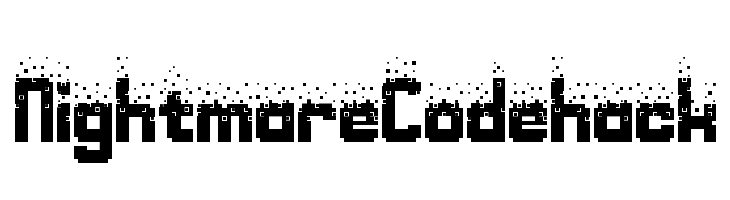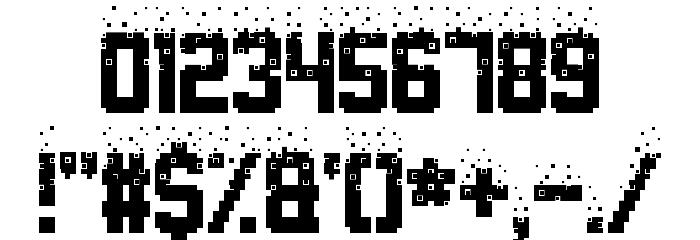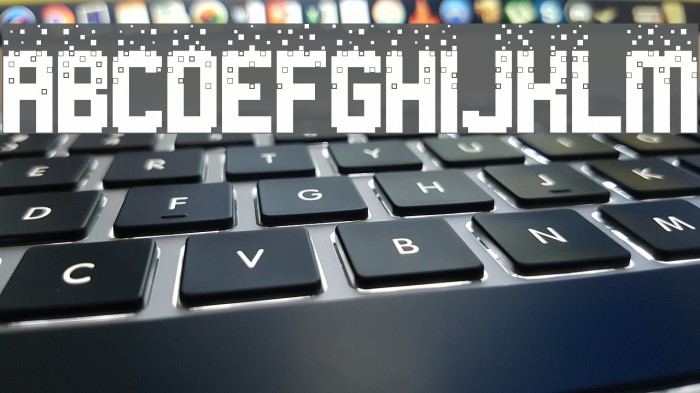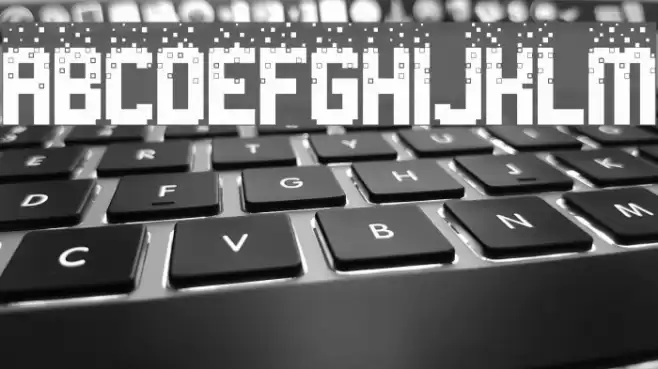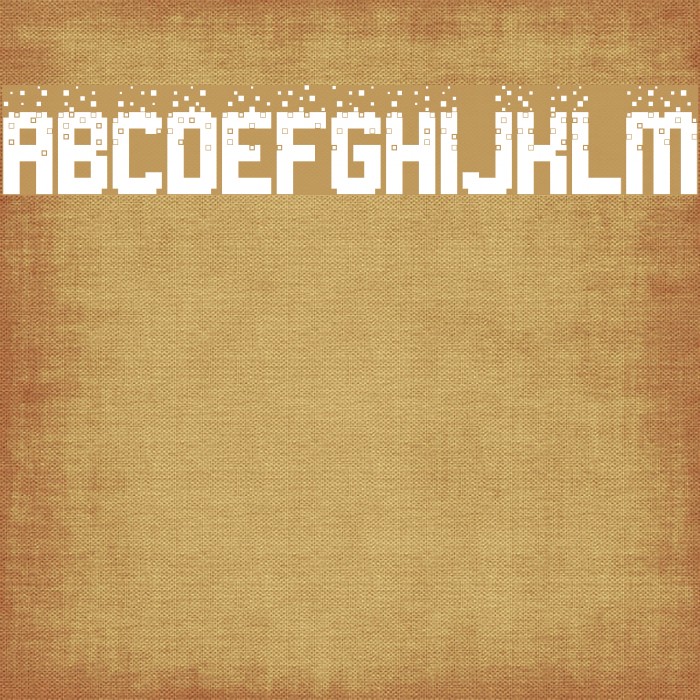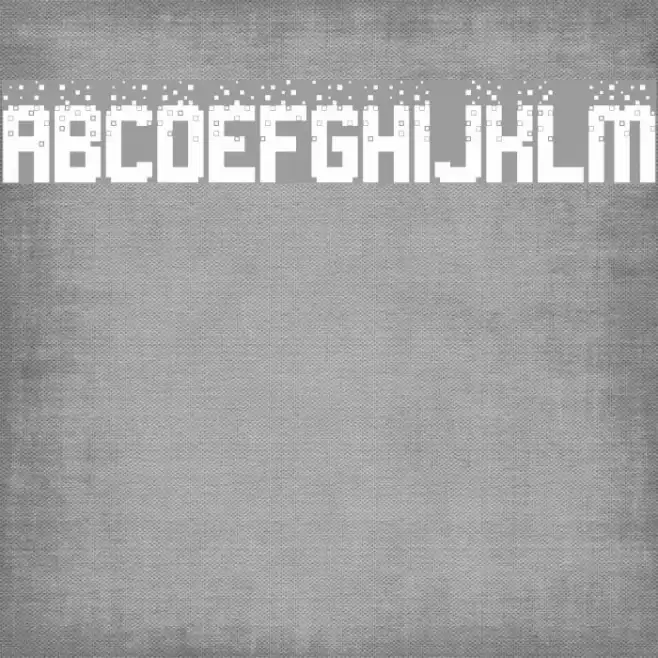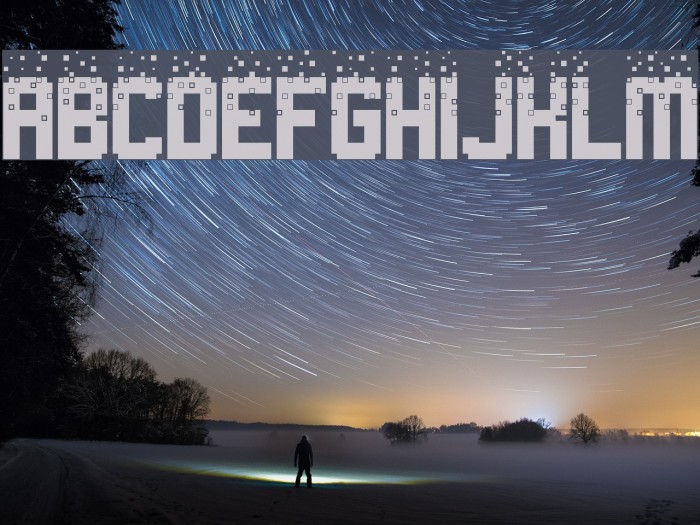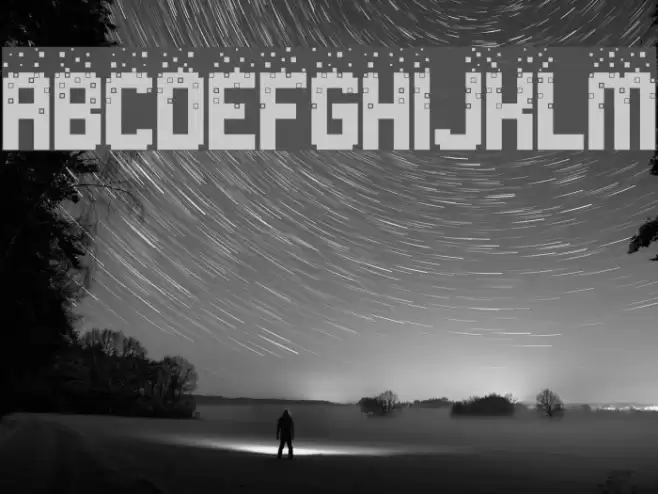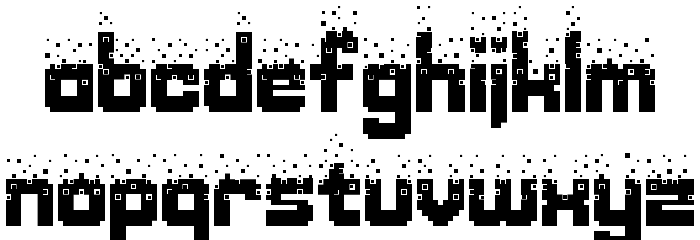
Nightmare Codehack Font
Nightmare Codehack Description
This font features a bold, pixelated style reminiscent of retro video game graphics. Each character is constructed with a blocky, grid-like appearance, giving it a digital, futuristic feel. The uppercase and lowercase letters maintain a consistent height, while the numerals and special characters integrate seamlessly into the overall design. The font's distinct pixelated edges and uniform stroke width create a cohesive and striking visual impact, ideal for projects that require a tech-savvy or nostalgic aesthetic.
| Overall Style | Retro, Digital |
| Proposed Projects | Ideal for video game design, tech-themed posters, digital art, and retro-inspired branding. |